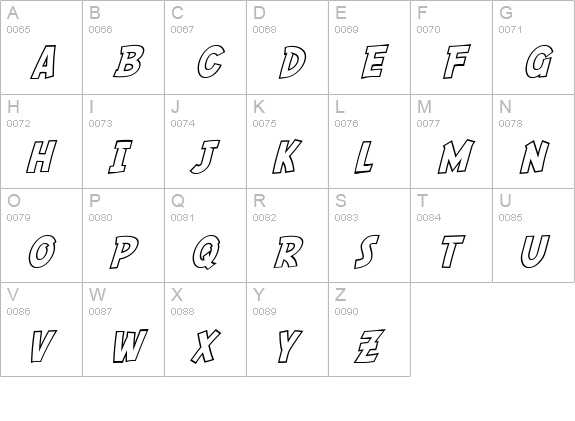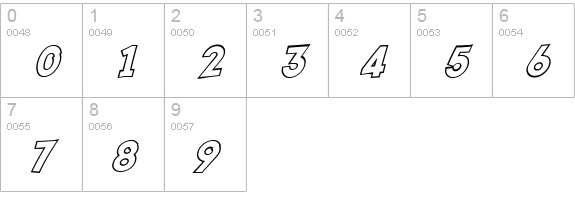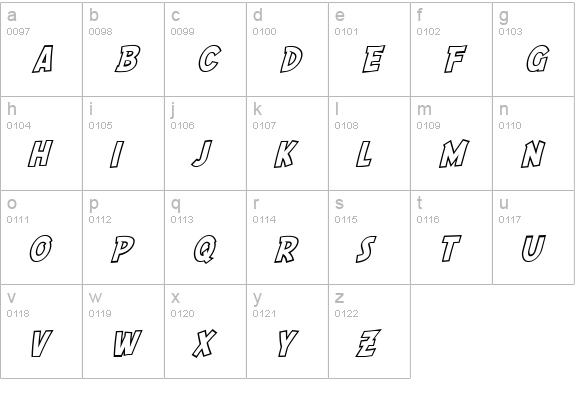
SF Comic Script Outline Font Details
Introducing the SF Comic Script Outline font, a whimsical and playful typeface that will bring your comic book creations to life! This font is the perfect blend of fun and sophistication, making it a must-have for any comic book artist or designer. With its bold and energetic strokes, SF Comic Script Outline adds a dynamic touch to your lettering, capturing the essence of action-packed scenes and hilarious dialogue. It effortlessly conveys the excitement and humor of the comic book world, all while maintaining a clean and legible appearance. What sets SF Comic Script Outline apart is its unique outline design, which adds an extra layer of depth and dimension to your text. This feature allows your words to visually pop off the page, creating a visually striking impact that captivates readers. But here's the best part - SF Comic Script Outline is available for free! That's right, you can download this incredible font at FontsMarket.com without spending a dime. We believe that creativity should be accessible to all, and that's why we're offering this font as a free resource for artists, enthusiasts, and anyone who wants to add a touch of comic book magic to their projects. So whether you're working on a comic book, a graphic novel, a poster, or any other design project that needs a playful and expressive typeface, SF Comic Script Outline is the perfect choice. Its versatility and charm will enhance your storytelling and captivate your audience, leaving a lasting impression. Download SF Comic Script Outline for free at FontsMarket.com and unleash your creativity today. Embrace the power of this remarkable font and take your comic book creations to new heights. Happy designing!